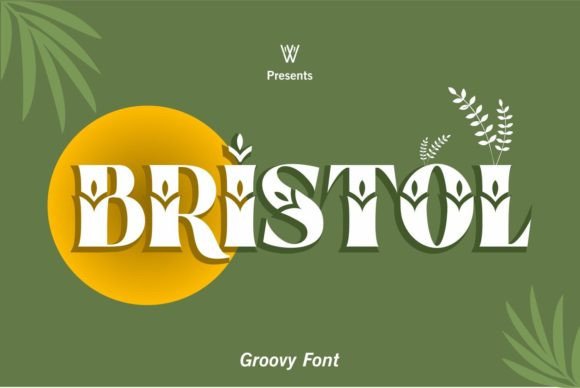
If you’re looking for a stylish, modern, and highly aesthetic typeface to elevate your creative projects, the Bristol Font is one of the most visually appealing choices available today. Loved by designers, digital creators, and branding experts, Bristol Font stands out for its refined elegance, smooth curves, and contemporary aesthetic style. Whether you’re working on branding, posters, social media edits, or minimal design layouts, this font delivers a clean, premium look that enhances any project.
What Is the Bristol Font?
The Bristol Font is a modern, aesthetic-style typeface created with elegance, simplicity, and visual harmony in mind. It blends contemporary serif or semi-serif design elements with clean geometric proportions, making it perfect for luxury branding and minimalistic projects.
The font is commonly recognized for:
Soft curves & stylish strokes
Balanced spacing and proportions
Aesthetic modern lettering style
High readability
A premium design appeal
Bristol Font feels both fashionable and timeless, making it one of the most widely used aesthetic fonts across the design community.
Why Designers Love Bristol Font
Professional designers appreciate fonts that bring beauty without compromising functionality. Bristol Font checks all the boxes.
1. Aesthetic & Minimal Design Appeal
Aesthetic fonts often carry a calm, elegant visual tone. Bristol Font is designed with soft curves and refined alignment that instantly enhances the beauty of any project.
2. Versatile Usage Across Design Fields
Whether you’re creating branding, invitations, website headers, or social media graphics, Bristol Font adapts easily and makes everything look polished.
3. High Readability
Even though it is stylish and decorative, it maintains clear readability—something essential for professional typography.
4. Perfect for Luxury Branding
Brands in fashion, beauty, lifestyle, and modern product niches often prefer fonts with sophistication. Bristol Font delivers that premium look effortlessly.
5. Great for Digital Creators
Instagram editors, Pinterest creators, and Canva designers often use aesthetic fonts like Bristol to make their content stand out.
Key Features of Bristol Aesthetic Font
✔ Modern & Clean Letterforms
The smooth lines and well-crafted characters give Bristol Font its signature elegance.
✔ Light Aesthetic Stroke Style
Makes it ideal for soft, minimal, and calming design environments.
✔ Premium Appearance
Its design feels expensive, modern, and editorial—similar to fonts used in lifestyle magazines.
✔ Beautiful Uppercase Set
The uppercase letters are especially eye-catching, making them perfect for headers, titles, and logos.
✔ Balanced Kerning
The spacing is precise, giving all text a neat and organized appearance.
✔ Highly Versatile
From logos to posters to social media posts, Bristol Font suits nearly every aesthetic theme.
Best Uses of Bristol Font
The Bristol Font can be used across various creative and professional applications. Here are some of the top use cases:
1. Branding & Logo Design
If you want a modern, luxury-inspired logo, Bristol Font is an excellent choice. Its aesthetic appearance gives brands a premium and trustworthy feel.
2. Social Media Graphics
Influencers and designers use aesthetic fonts for:
Instagram posts
Reels covers
Pinterest pins
Facebook ads
Quote graphics
Bristol Font adds elegance to content instantly.
3. Invitations & Event Designs
Perfect for:
Wedding cards
Birthday invitations
Baby shower invites
Minimal event brochures
4. Website Headers
Aesthetic fonts enhance a website’s hero section and improve the user’s first impression.
5. Posters & Editorial Layouts
For magazines, blogs, or artistic posters, Bristol Font offers a stylish editorial look.
6. Product Packaging
Beauty, skincare, perfume, and lifestyle brands love the clean minimalism of Bristol.
7. Business Presentations
Presentations feel more polished and professional with crisp, modern letterforms.
Conclusion
The Bristol Font is a standout choice for anyone seeking a clean, modern, and aesthetic typeface. Whether you’re designing a logo, building a brand identity, creating social media graphics, or working on personal design projects, Bristol Font gives your text a professional and visually pleasing look.